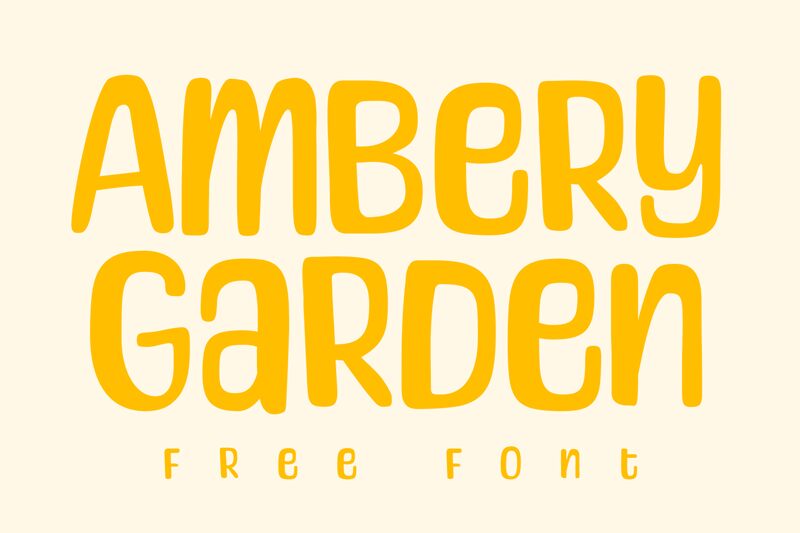
Ambery Garden Regular
Ambery Garden, a captivating display font crafted by designer Niskala Huruf, exudes a whimsical, cartoon-inspired aesthetic. This typeface boasts playful, rounded letterforms that evoke a sense of childlike wonder and lightheartedness. The thick, organic strokes and subtle inconsistencies in the character widths lend the font a charming, handcrafted feel, while the generous spacing between letters adds a sense of airy, approachable elegance. Ambery Garden's visual appeal lies in its ability to elicit emotions of joy, nostalgia, and playfulness, making it a versatile choice for a wide range of design projects.
Ambery Garden's unique qualities make it well-suited for use in children's books, greeting cards, party invitations, and promotional materials targeted towards a younger audience. Its whimsical style also lends itself to branding and packaging designs for products with a fun, lighthearted appeal. Designers looking to infuse their projects with a touch of childlike wonder and warmth will find Ambery Garden to be a captivating and adaptable font choice.